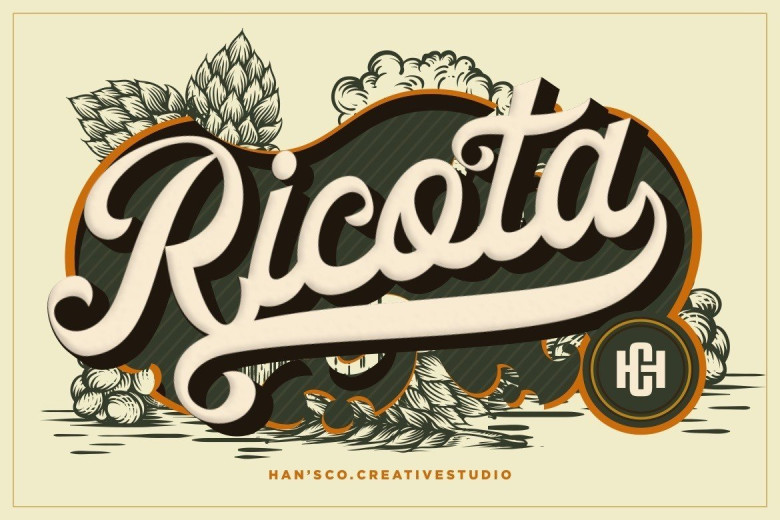
Ricota Font is a casual script typeface and combination with Hand Lettering style which gives more personal touch and makes the vintage and rustic looks being customized.
It’s suitable to use as a logotype, product designs, label, watermark, social media posts, apparel, invitation, signboard, sport club, motor/car, special events or anything that need handwriting taste.